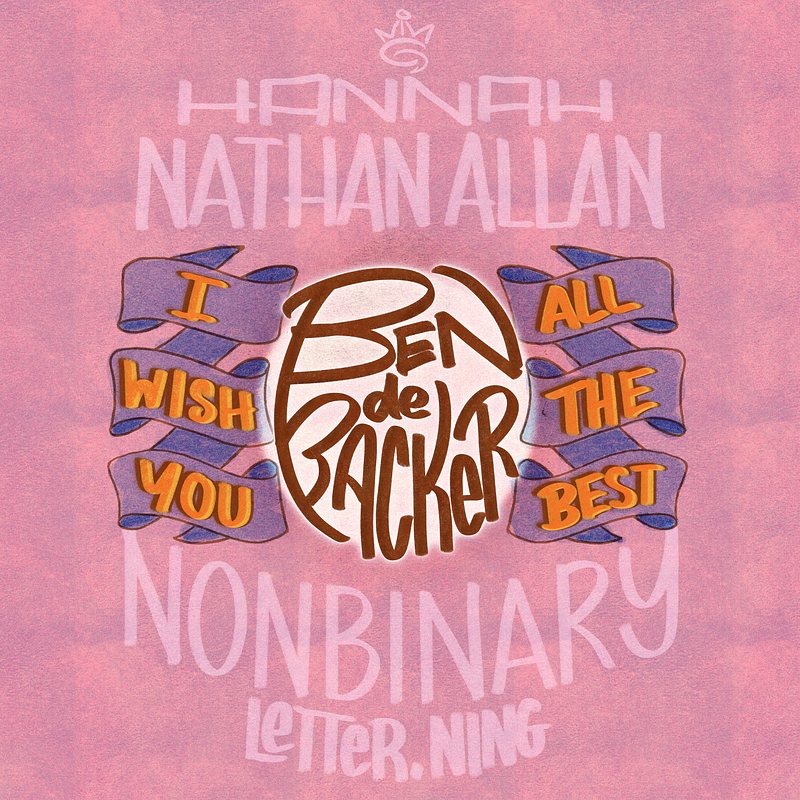
The Pride Month Lettering 00007-Ben De Backer from I Wish You All The Best
It’s rare to see a non-binary representation, let alone a main character, so this book, I Wish You All The Best, was a breath of fresh air.
The exploration of gender fluidity and the acceptance of varying gender identities is so important. Gender fluidity is real, as is the lack of gender, like being agender. I hope people can accept these identities instead of questioning their validity. If we could just love and accept each other without judgment, the world would be a better place.
The rejection of one's identity by loved ones is a heartbreaking reality for many, but finding someone who truly accepts us for who we are is more than enough to keep us going.
The title of the book alone warms the heart, and the blending of Ben's name with it feels so comforting. I also chose colors to resemble the genderfluid and non-binary flags to celebrate Pride Month.